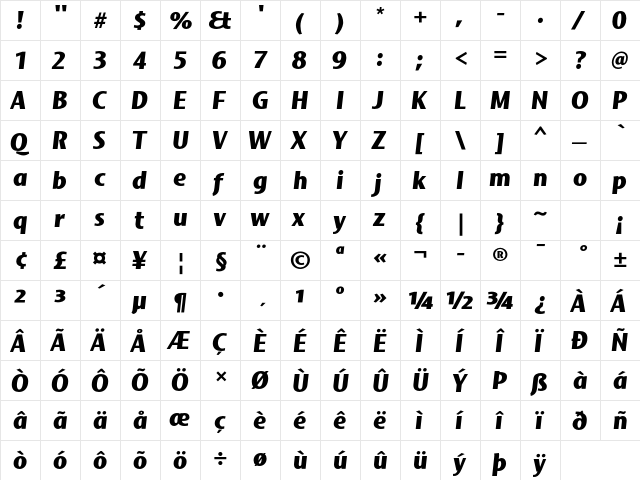
Mosquito Formal Std Black Italic Font Preview
Mosquito Formal Std Black Italic
Design Context for Mosquito Formal Std Typeface
Mosquito Formal Std takes a measured approach to typography — its balanced proportions and neutral character make it a reliable workhorse for both digital and print work. The slanted form adds forward momentum and visual energy.
Pro Tip: Try Mosquito Formal Std for annotation and caption copy alongside an upright companion — the contrast in angle creates a dynamic but ordered typographic system.